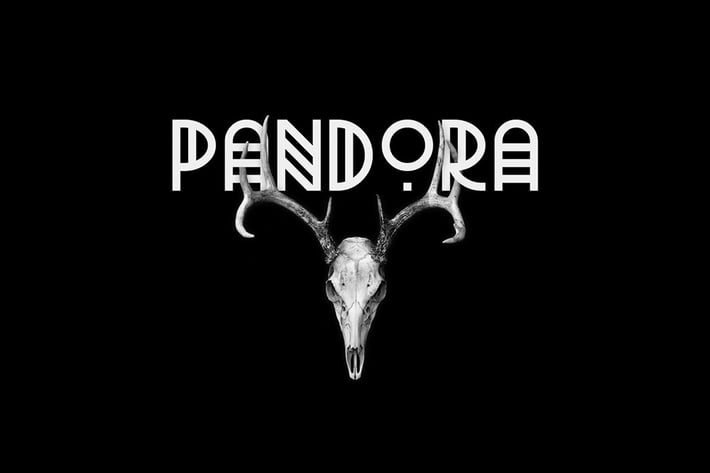
Pandora Typeface
Pandora is a weird typeface. It consists of 3 different fonts. Ep.1 is the simple version of the font, Ep.2 has more geometric elements and is more abstract and Ep.3 is just out of this world.
The typeface only includes Uppercase letters and numerals.